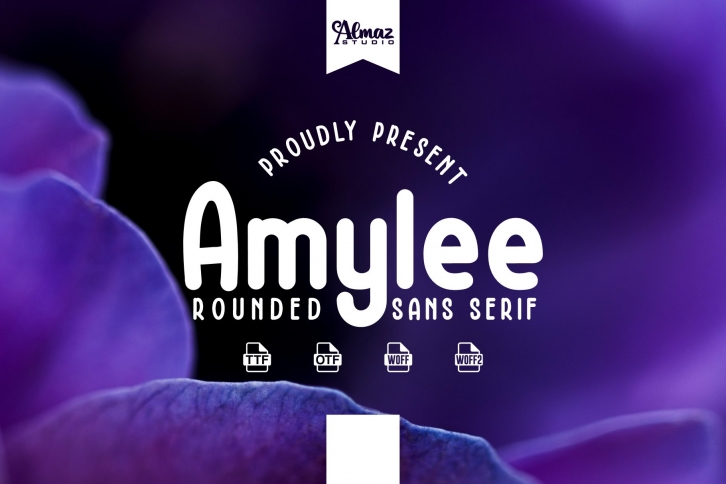
Amylee FONT Download
Amylee is a gorgeous font that was realeased on August 5, 2022. The font can be used in many style contexts and design environments. Perfect for invitations, magazines, websites, logos, and more! It was designed by Almaz Studio and the file size is 14.57 MB. Thanks for checking out this font!